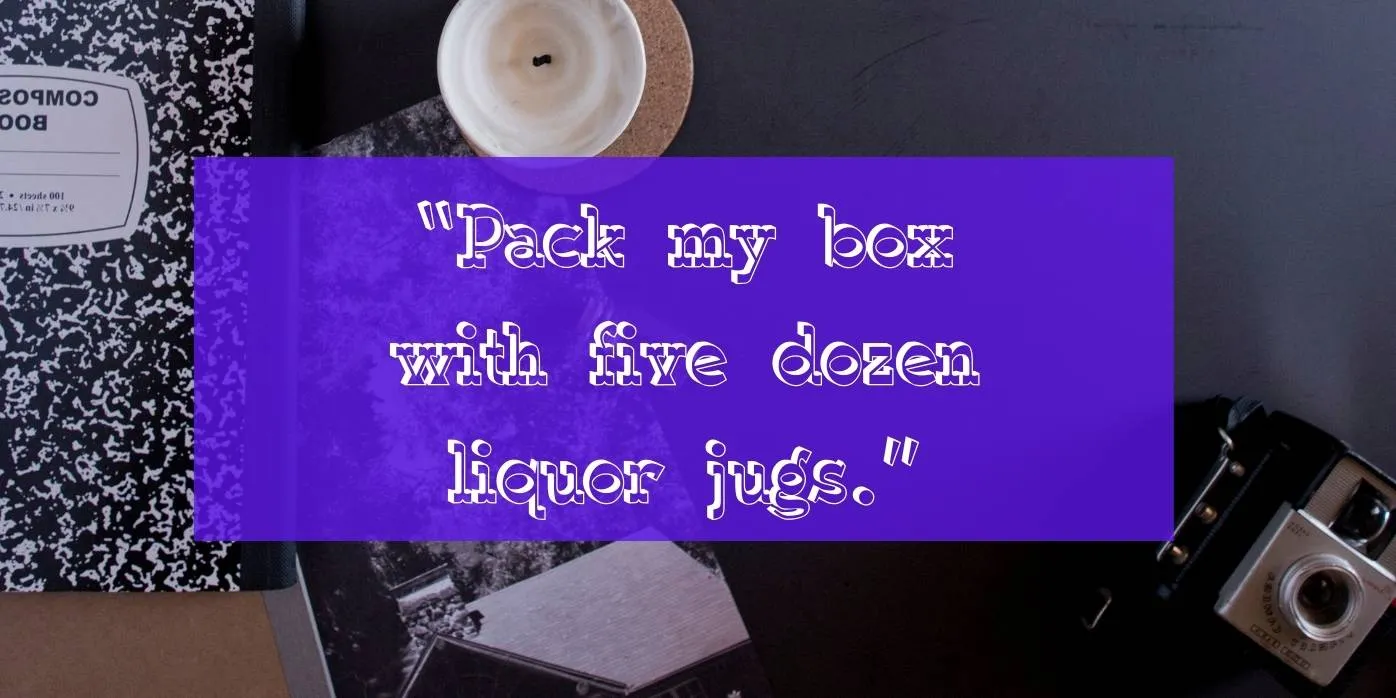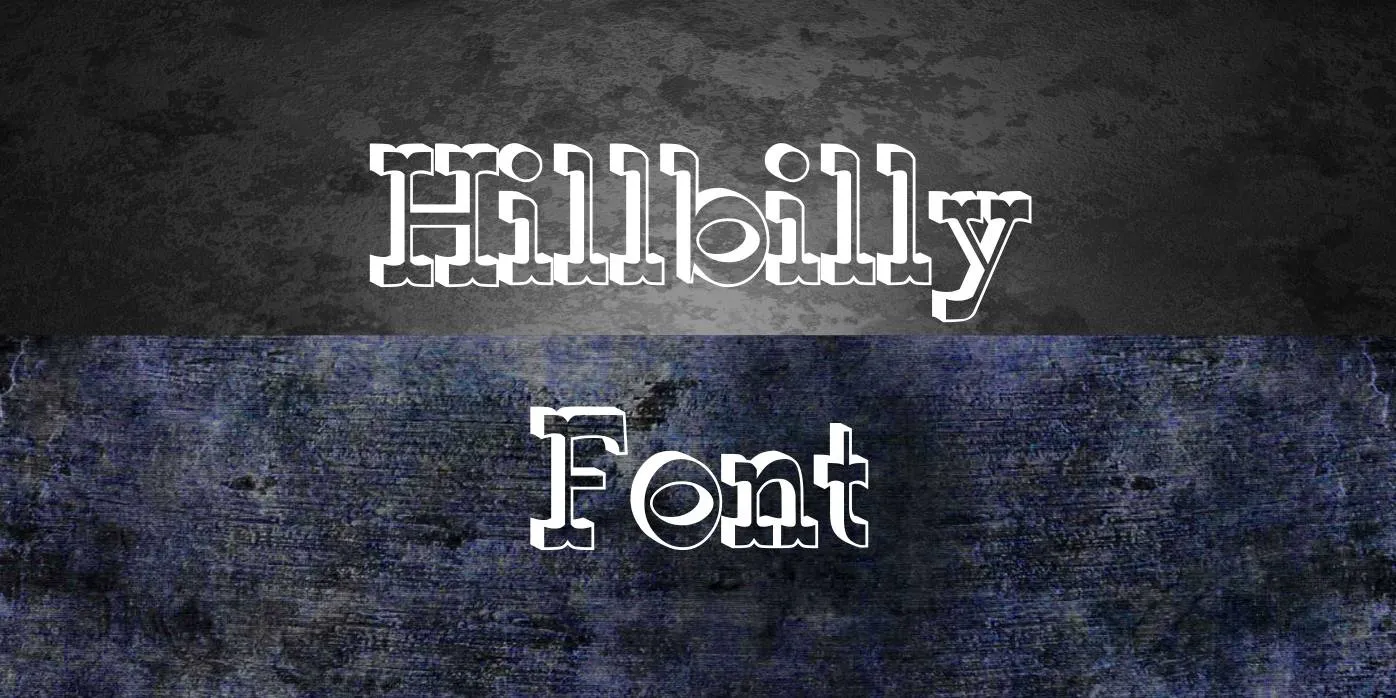
Hillbilly Font
Hillbilly Font is a fun, folksy font that is perfect for creating country-themed designs. It belongs to the Display typeface. This cute Font is a great choice for projects that need a touch of country charm. This playful font is perfect for invitations, announcements, and other documents that require a light-hearted, fun design.